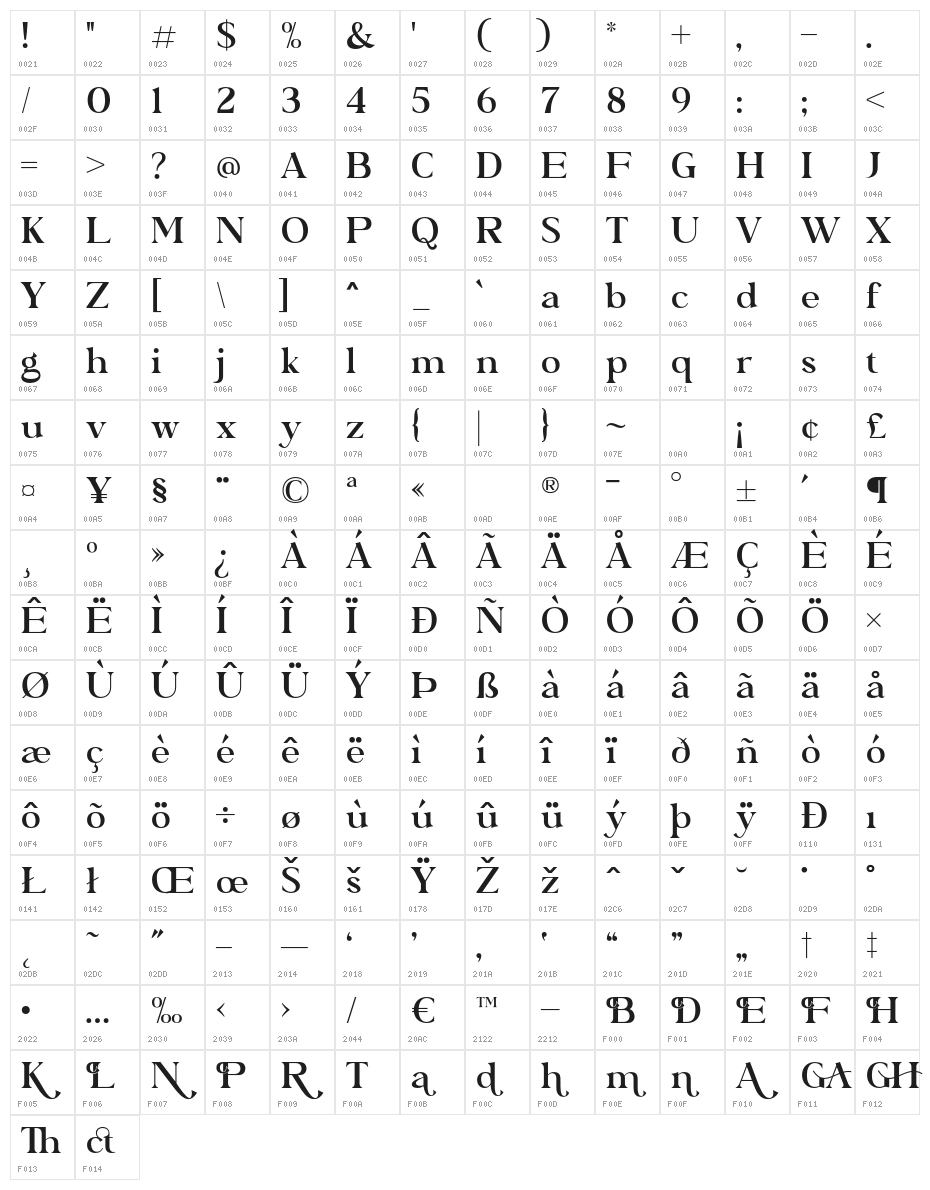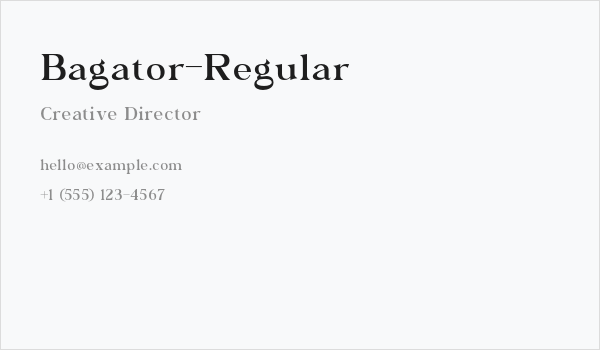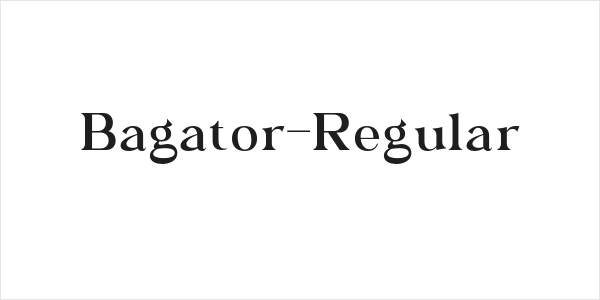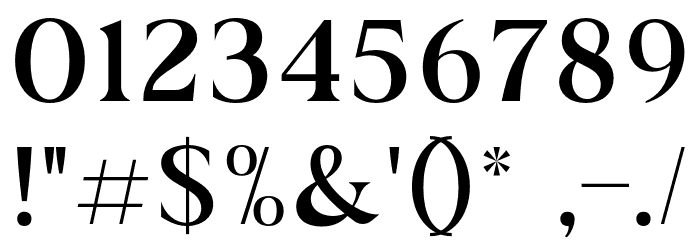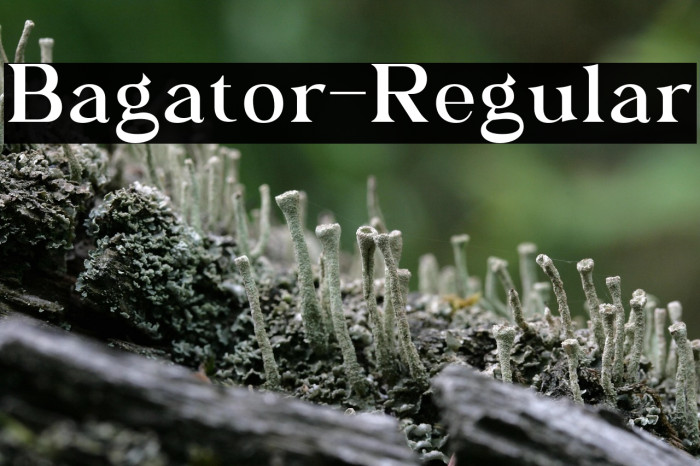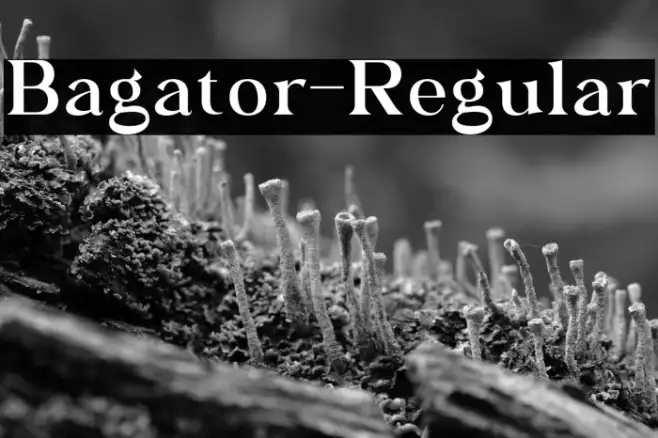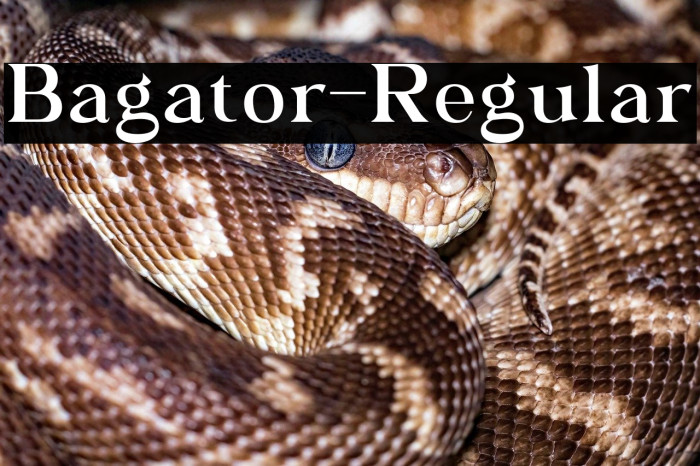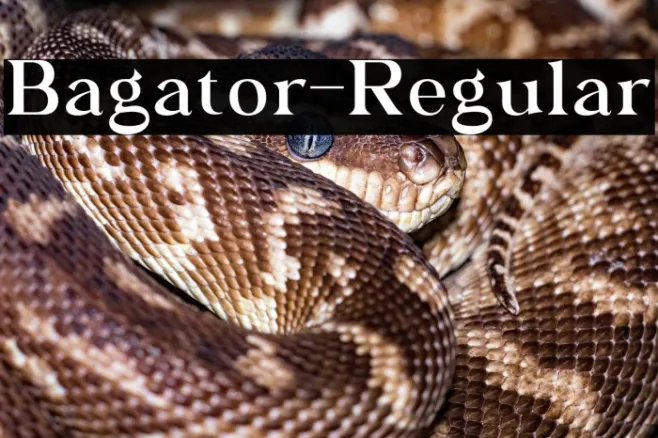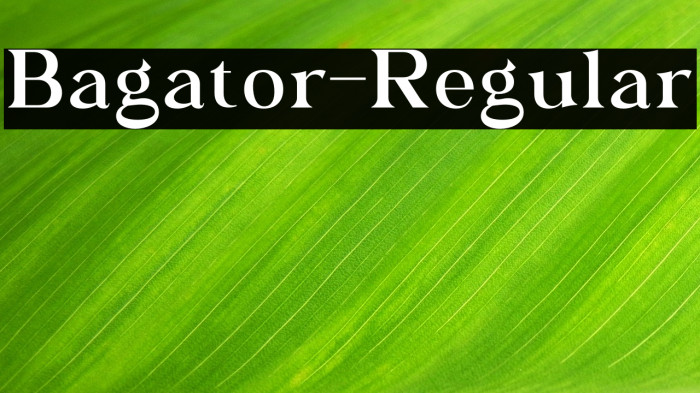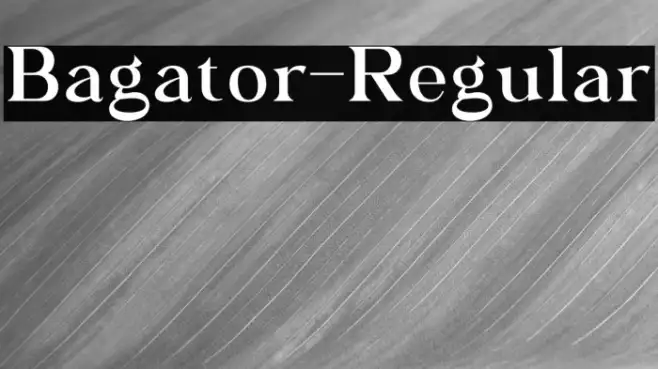
Bagator-Regular Font
Bagator-Regular Description
This font features a classic serif style with elegant, sharp serifs that give it a sophisticated and timeless appearance. The uppercase letters are bold and commanding, while the lowercase letters maintain a consistent and harmonious flow. The numerals are well-proportioned and align seamlessly with the overall design. Special characters are crafted with precision, maintaining the font's refined aesthetic. The contrast in stroke thickness is moderate, providing a balanced and readable text. This font is versatile, suitable for both digital and print media, and can be used effectively in a variety of design projects.
| Proposed Projects | Ideal for editorial design, book covers, formal invitations, and branding projects. |